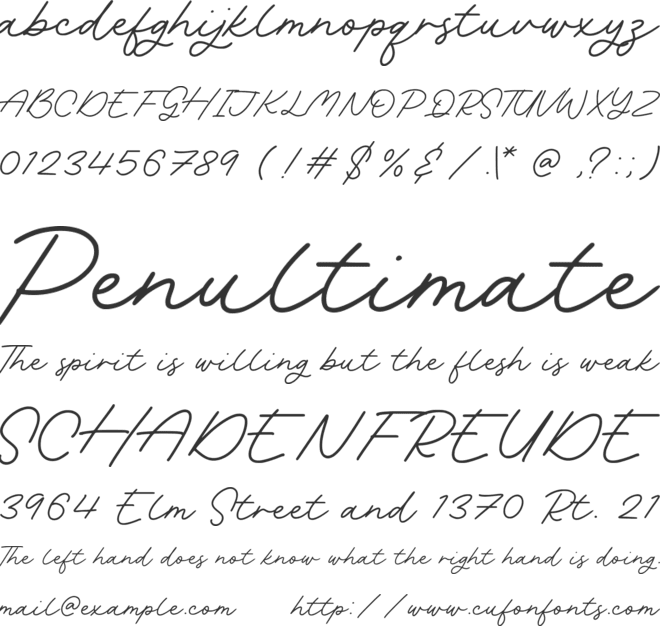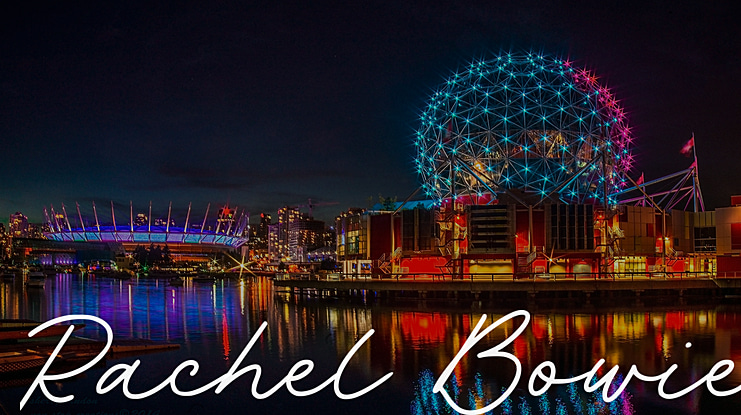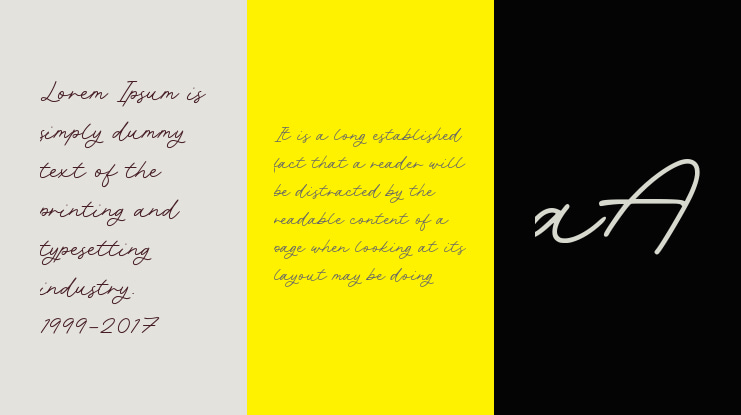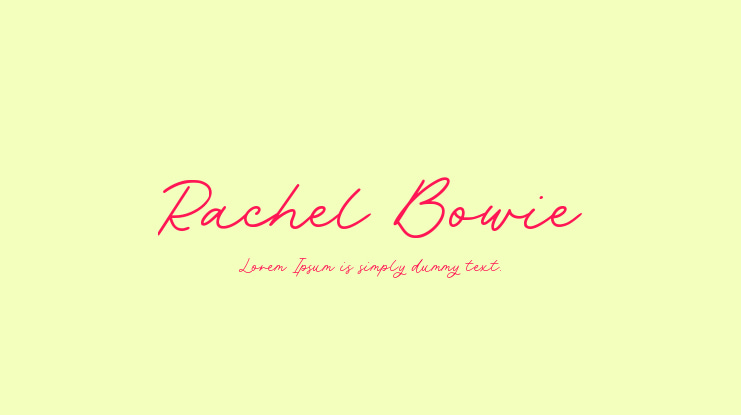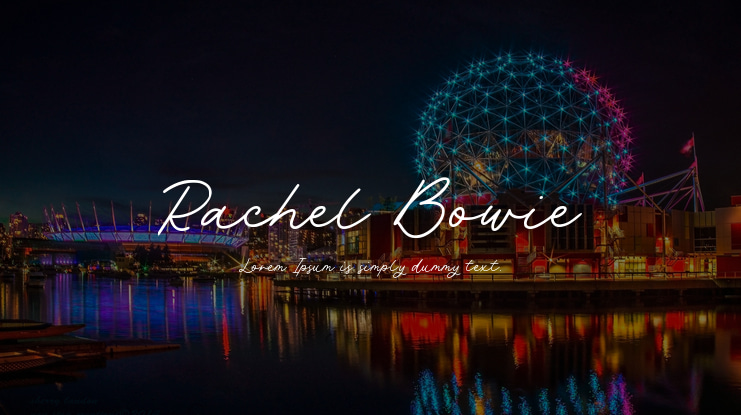
Rachel Bowie Font
Proudly Present, Rachel Bowie Font.
Rachel Bowie is a Modern Monoline Handwritten Font.
Rachel Bowie is perfect for product packaging, branding project, megazine, social media, wedding, or just used to express words above the background.